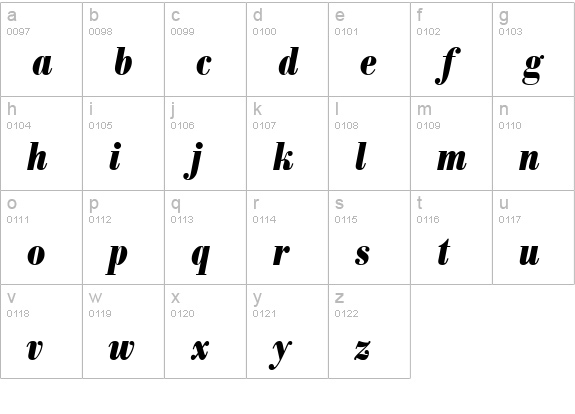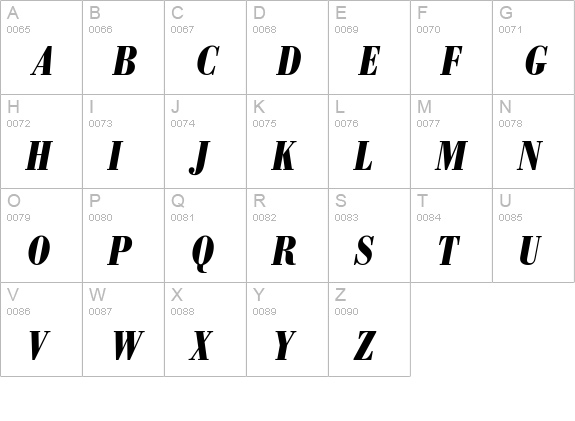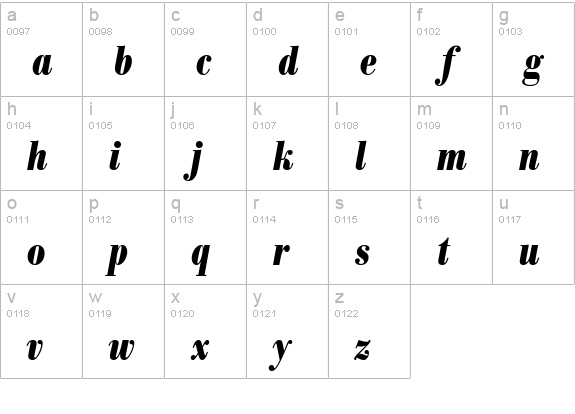
Bodoni BE Bold Condensed Italic is a strong, high-contrast, condensed-width, italic variant in the Bodoni typeface family \xE2\x80\x94 well suited to headlines, attention-grabbing titles, and strong calls-to-action.
Bodoni BE Bold Condensed Italic is a striking and elegant font that exudes sophistication and modernity. Its sleek and stylish design makes it perfect for adding a touch of class to any design project. The condensed and italicized features of this font create a sense of urgency and emphasis, making it ideal for headlines, titles, and other prominent text. Best of all, Bodoni BE Bold Condensed Italic is available for free download at FontsMarket.com. This means that you can easily access and use this beautiful font in your designs without any cost. Whether you're working on a professional project or a personal creative endeavor, this font is a versatile and eye-catching choice that is sure to make a statement. Download Bodoni BE Bold Condensed Italic today and elevate your designs with its bold and sophisticated style.